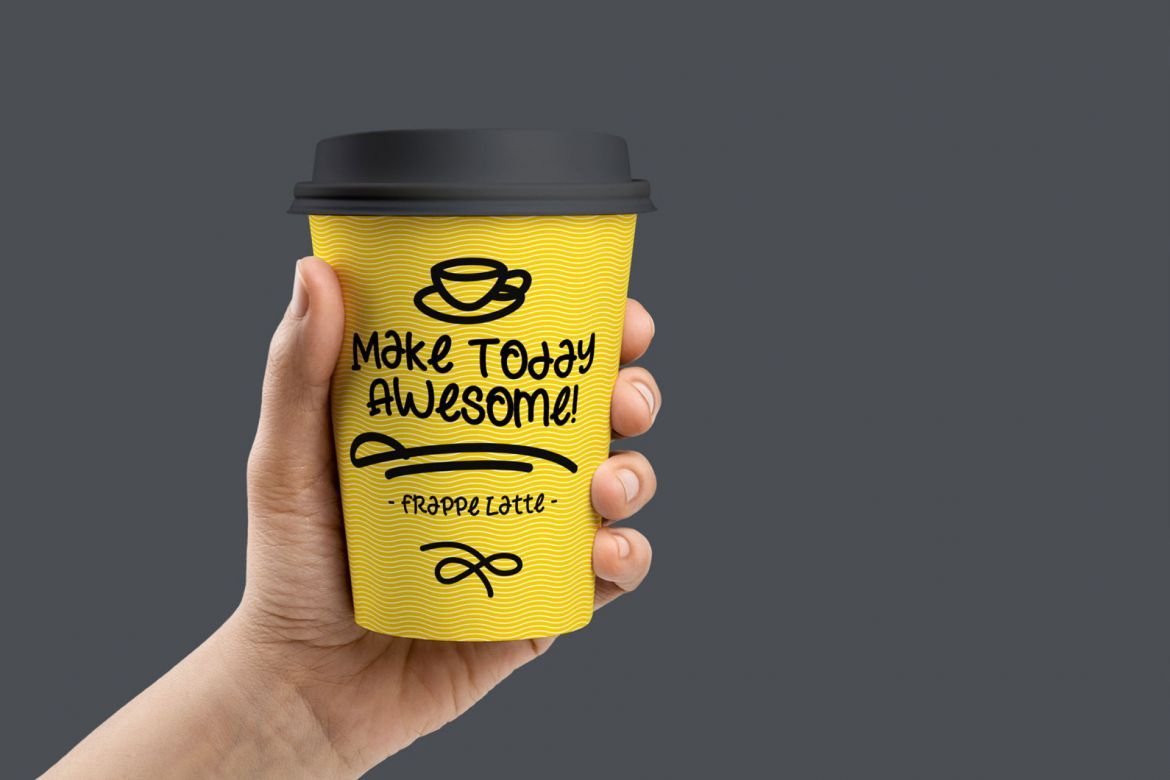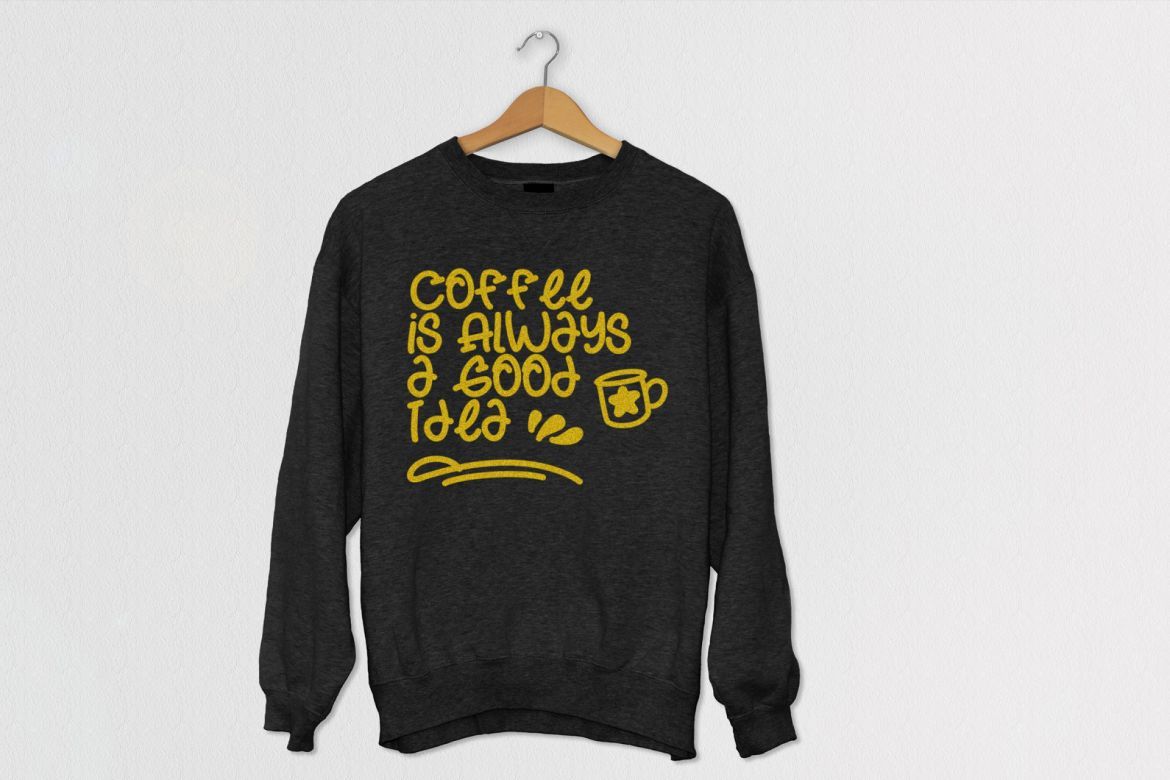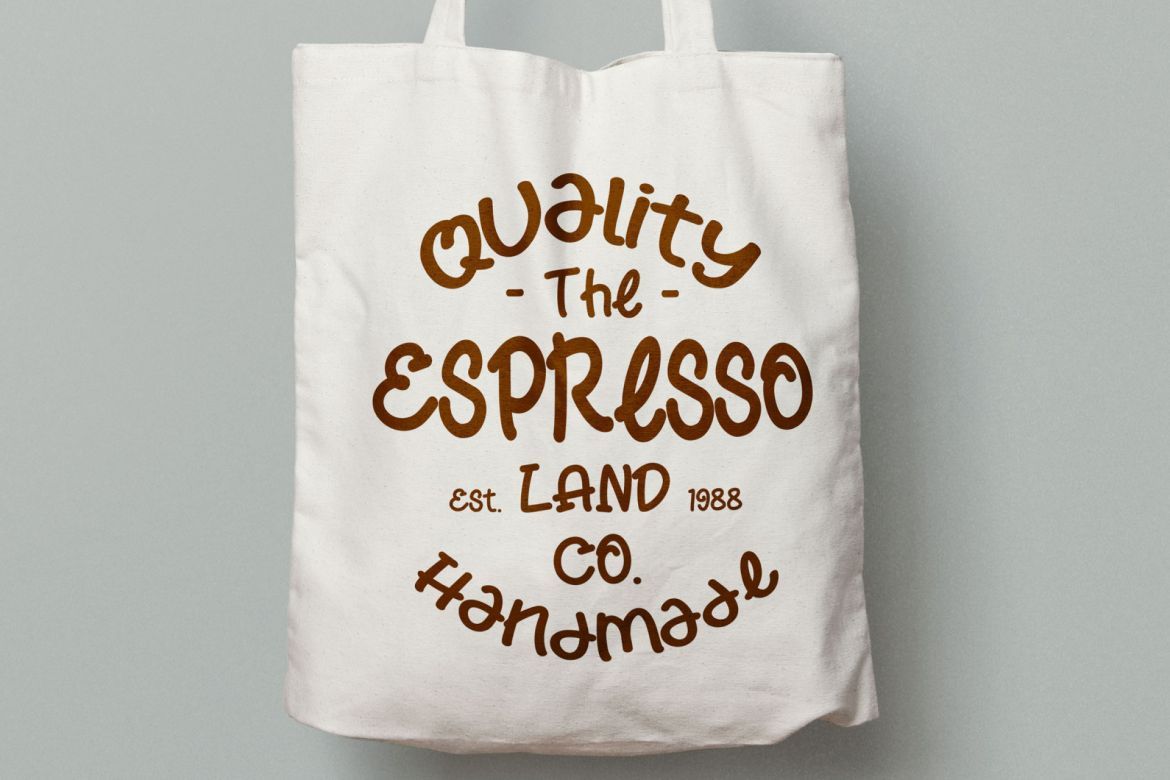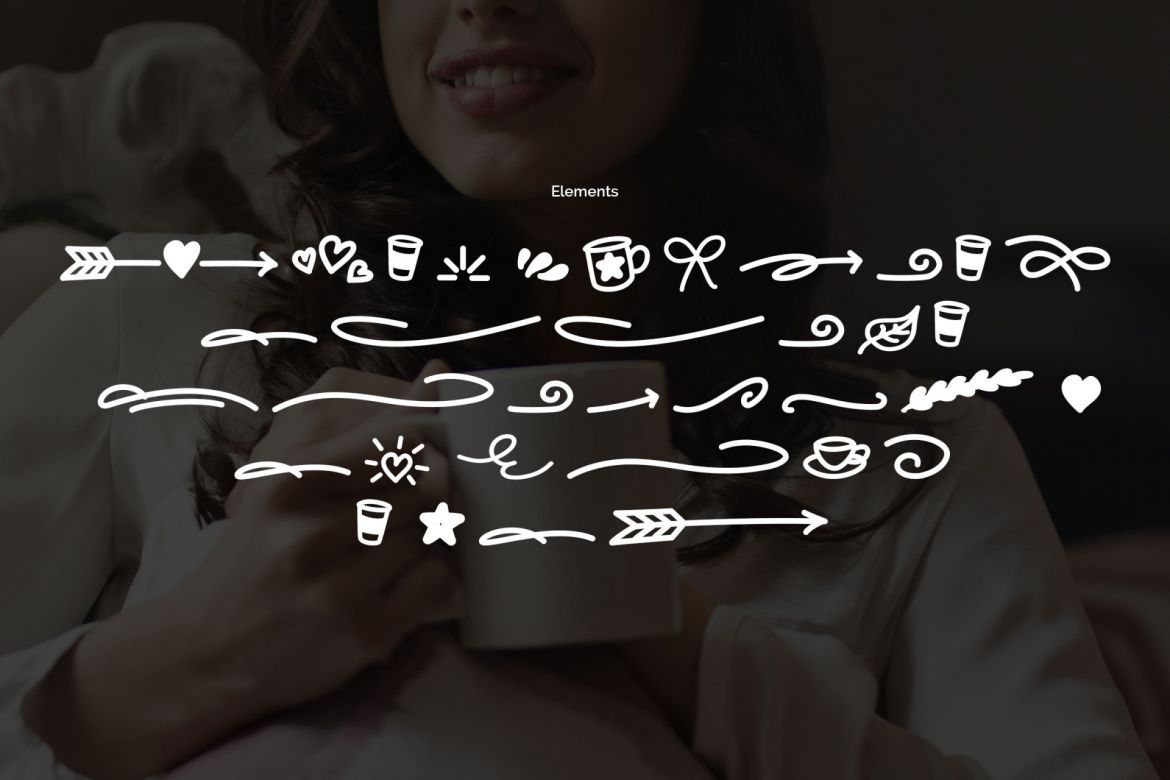
Frappe Latte - Display Font
Introducing – Frappe Latte is a tasty fun font, this font looks fun, cute, sweet, playful, catchy and versatile so you can use in a plethora of designs in both digital and print applications.